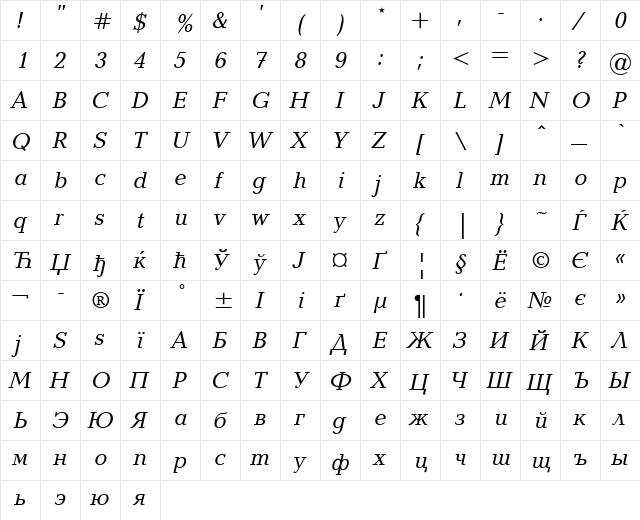
BalticaC Italic
| Foundry | ParaGraph |
Design Context for BalticaC Typeface
BalticaC offers clean, dependable letterforms without strong stylistic allegiance, making it a practical choice for designers who need flexibility. The slanted form adds forward momentum and visual energy.
Pro Tip: Use BalticaC for emphasis, pull quotes, and subheadings where its slanted energy can add rhythm to the layout.